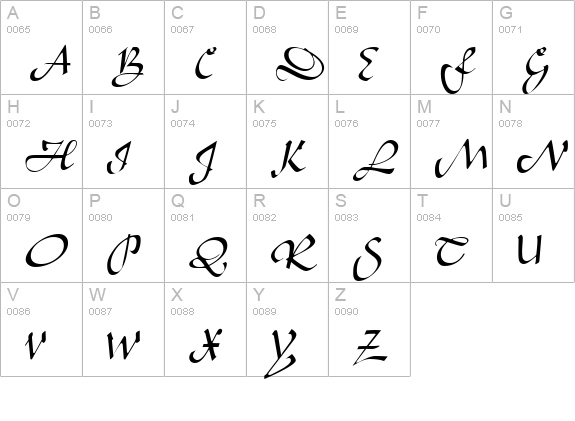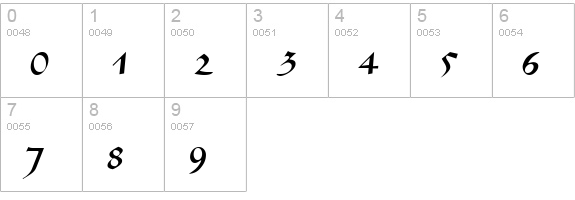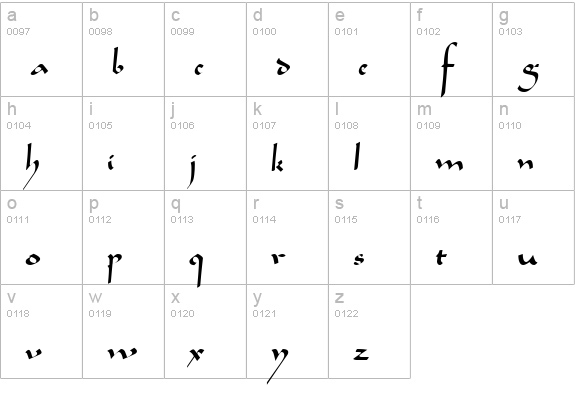
Bavand Regular is the standard, neutral variant in the Bavand typeface family \xE2\x80\x94 well suited to general body text, paragraphs, and standard typographic work.
Bavand Regular font is a versatile and modern typeface that brings a touch of sophistication to any design project. With its clean lines and elegant curves, this font exudes a sense of professionalism and style. Perfect for both headlines and body text, Bavand Regular is sure to make your designs stand out. What's even better is that Bavand Regular font is available for free download at FontsMarket.com. Whether you're working on a website, poster, or logo, this font will add a touch of class to your project without breaking the bank. Download Bavand Regular today and elevate your design to the next level.